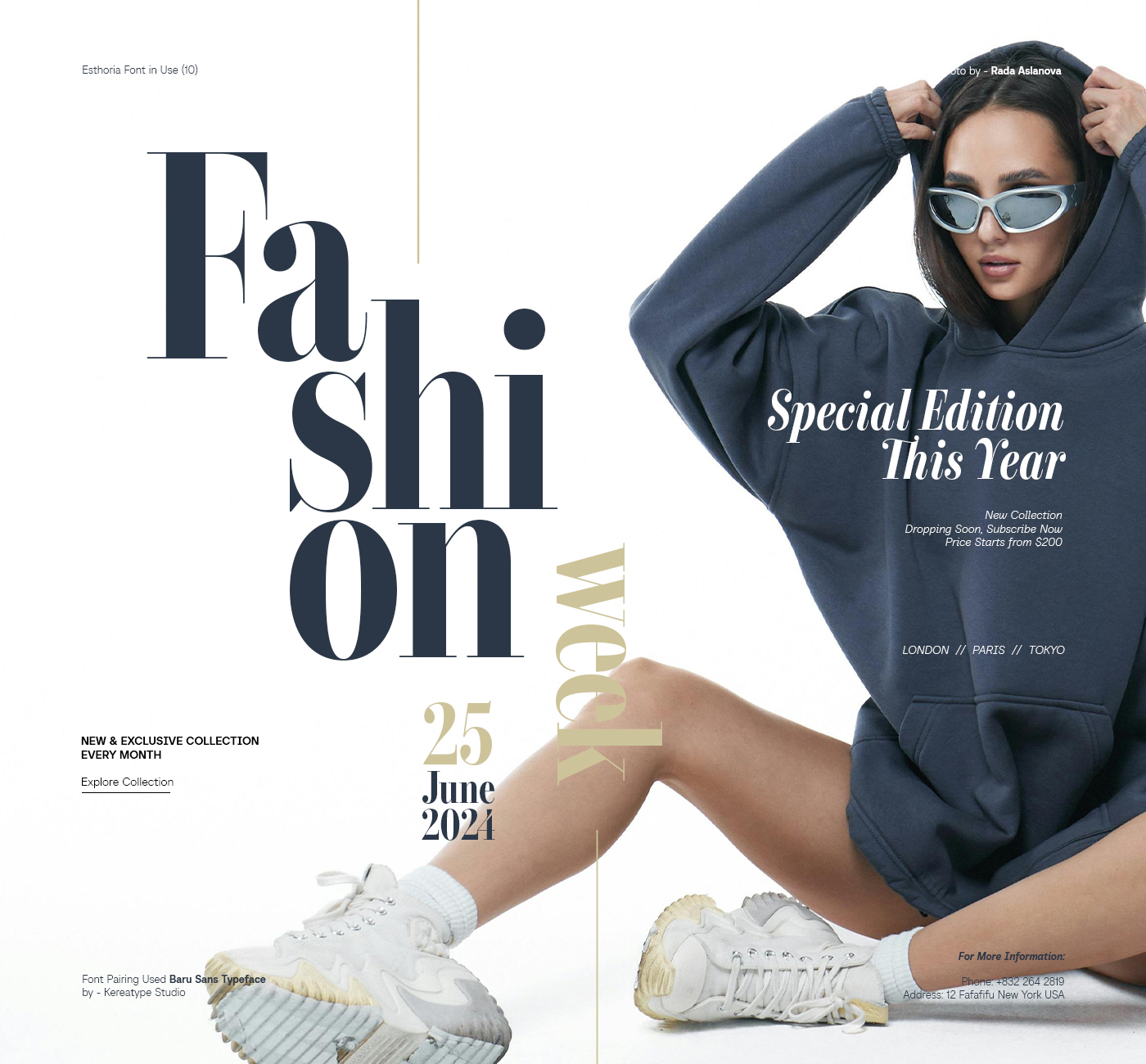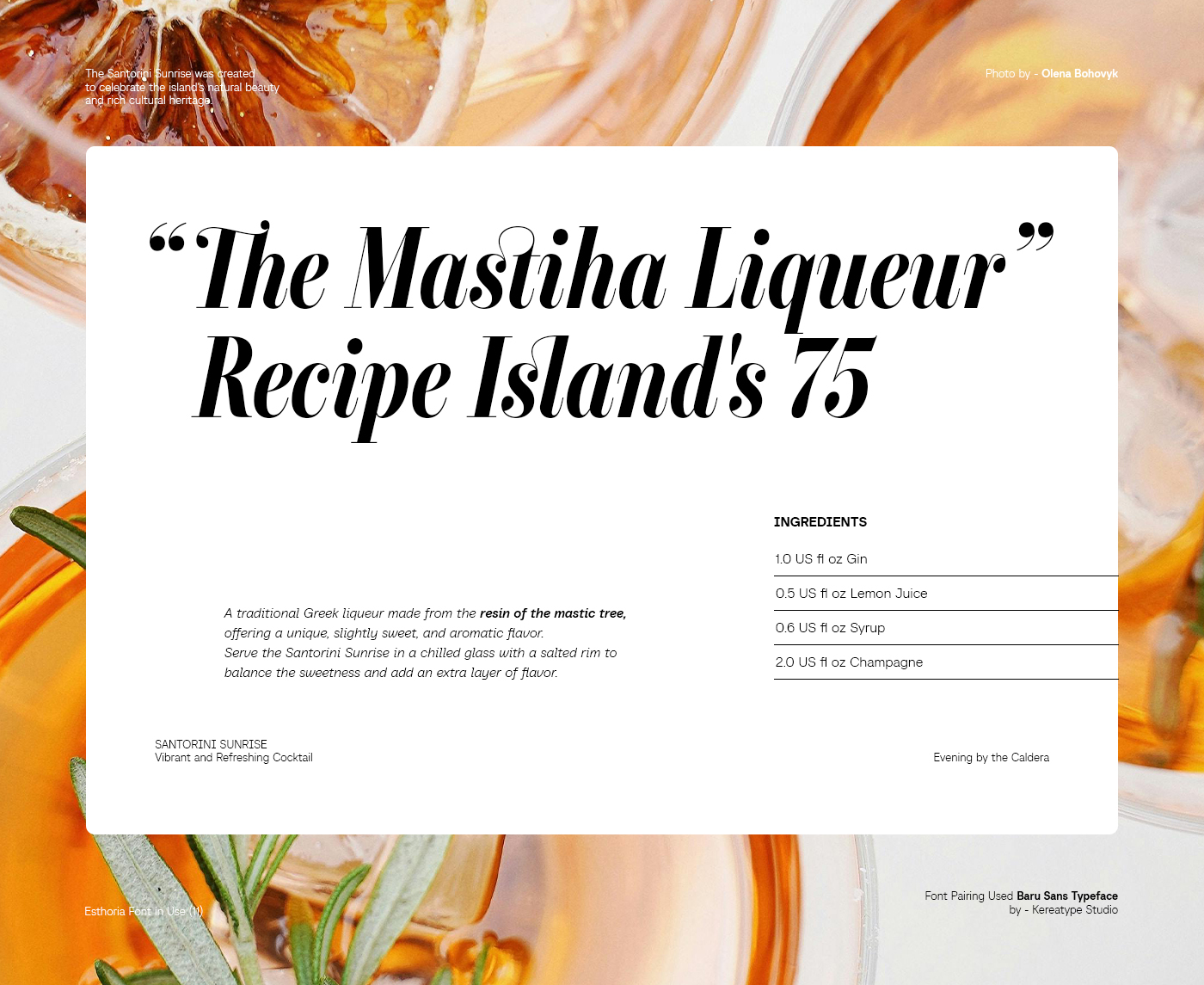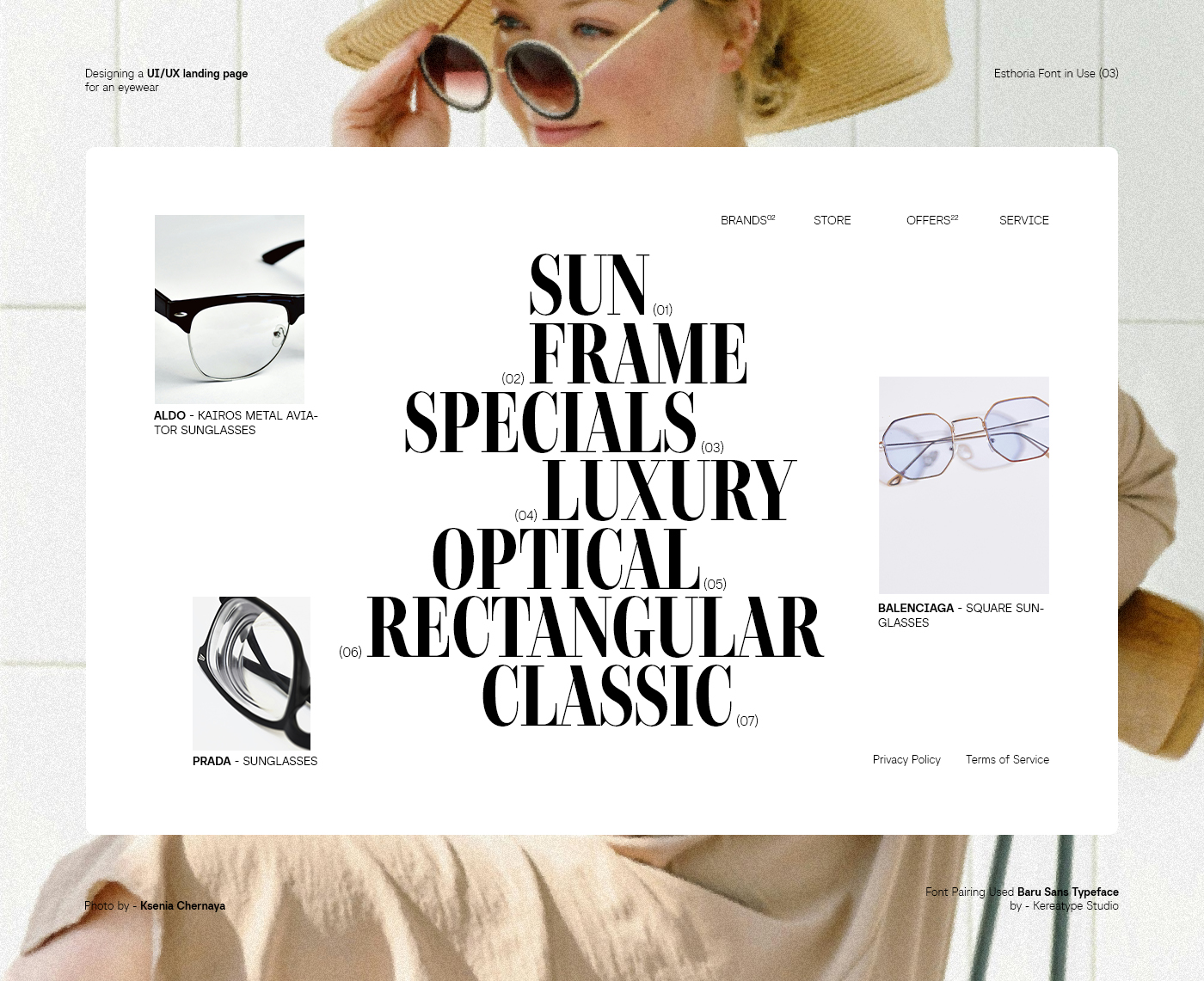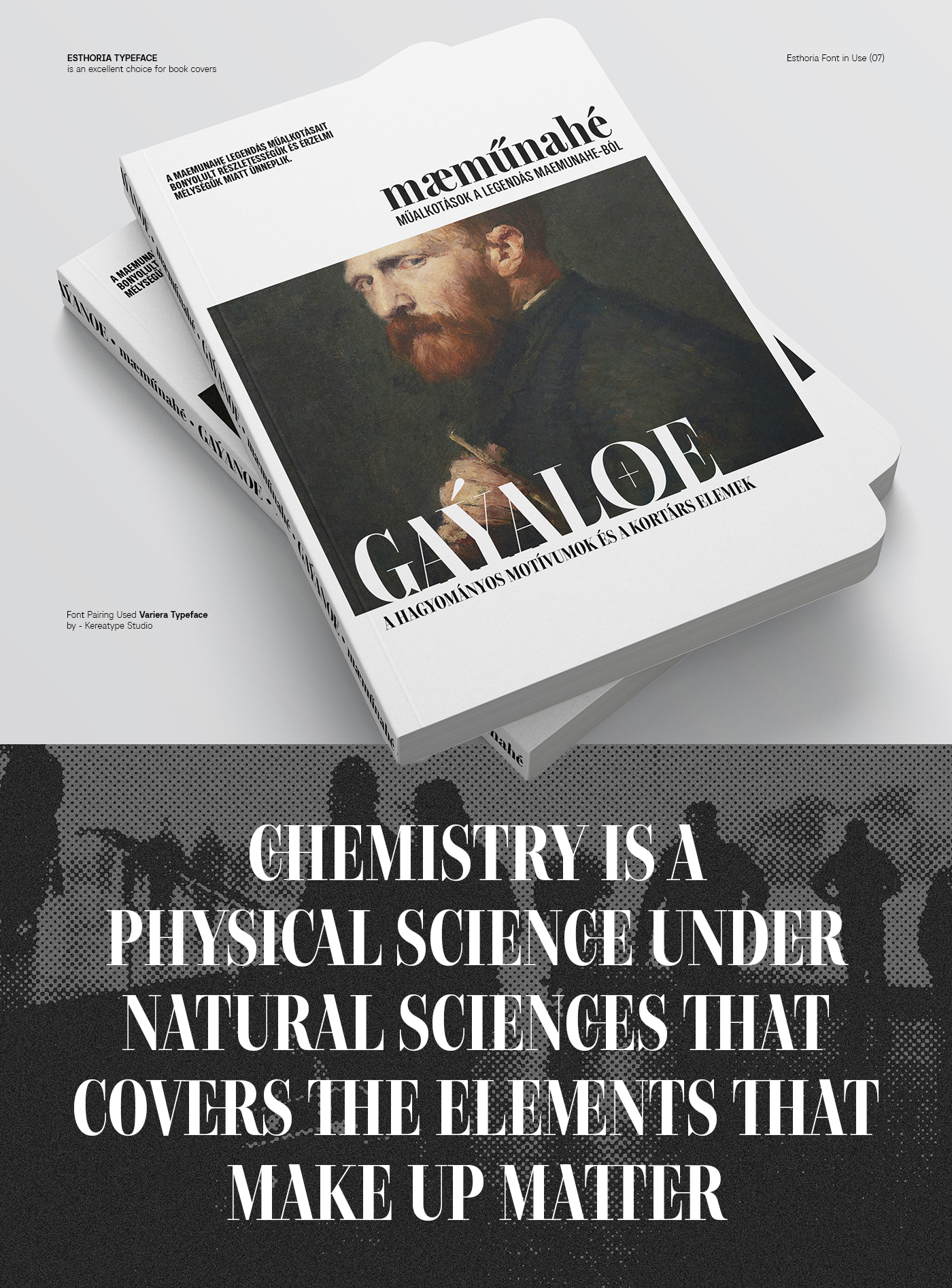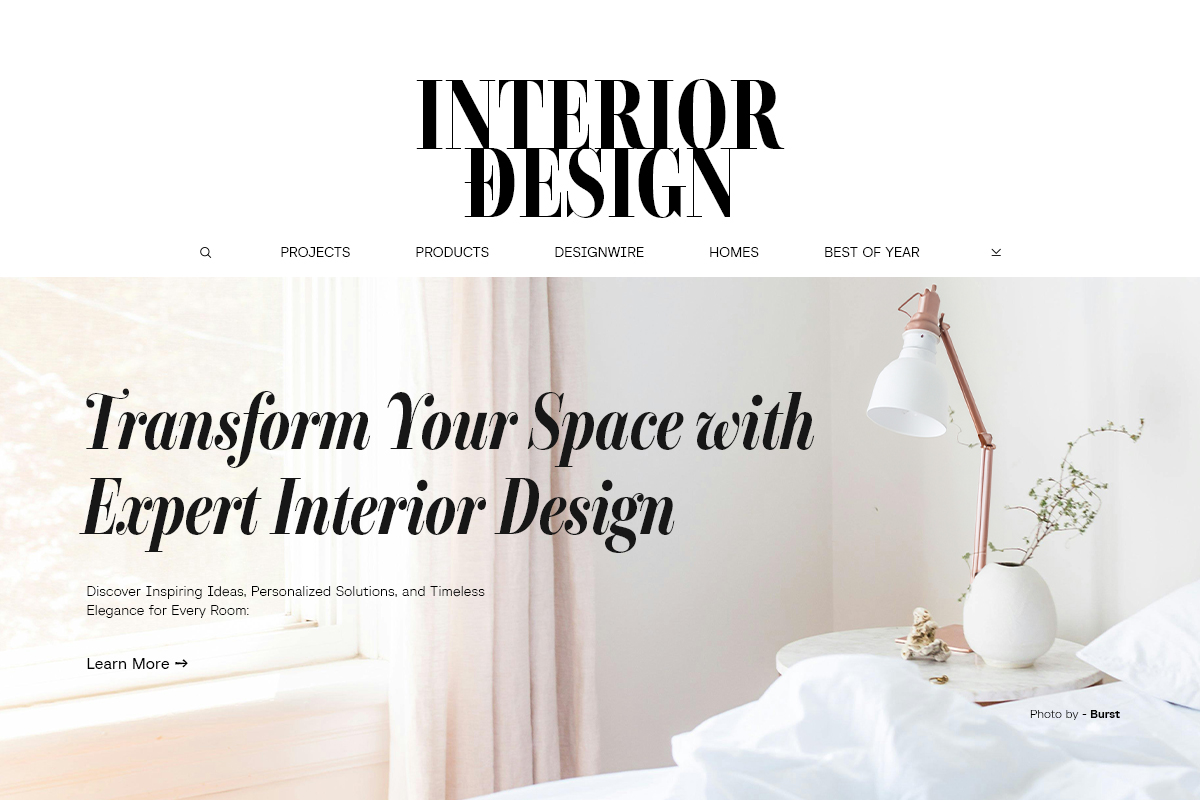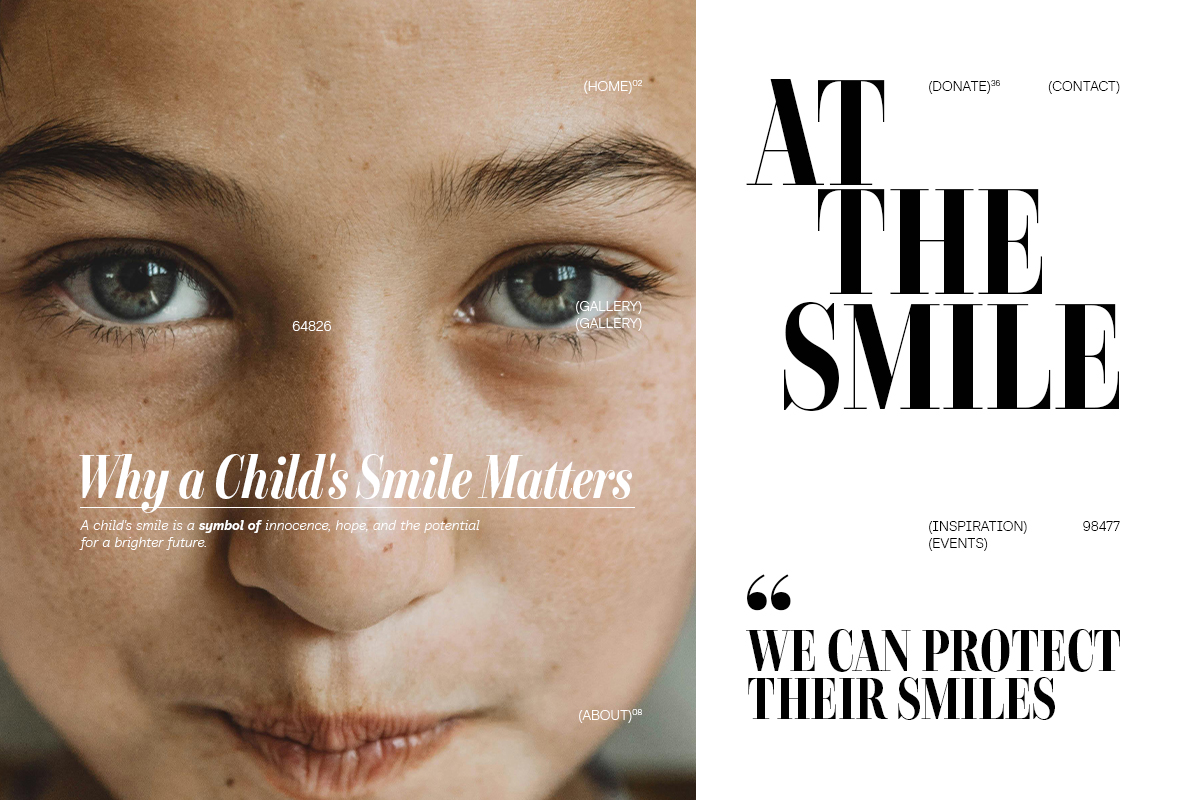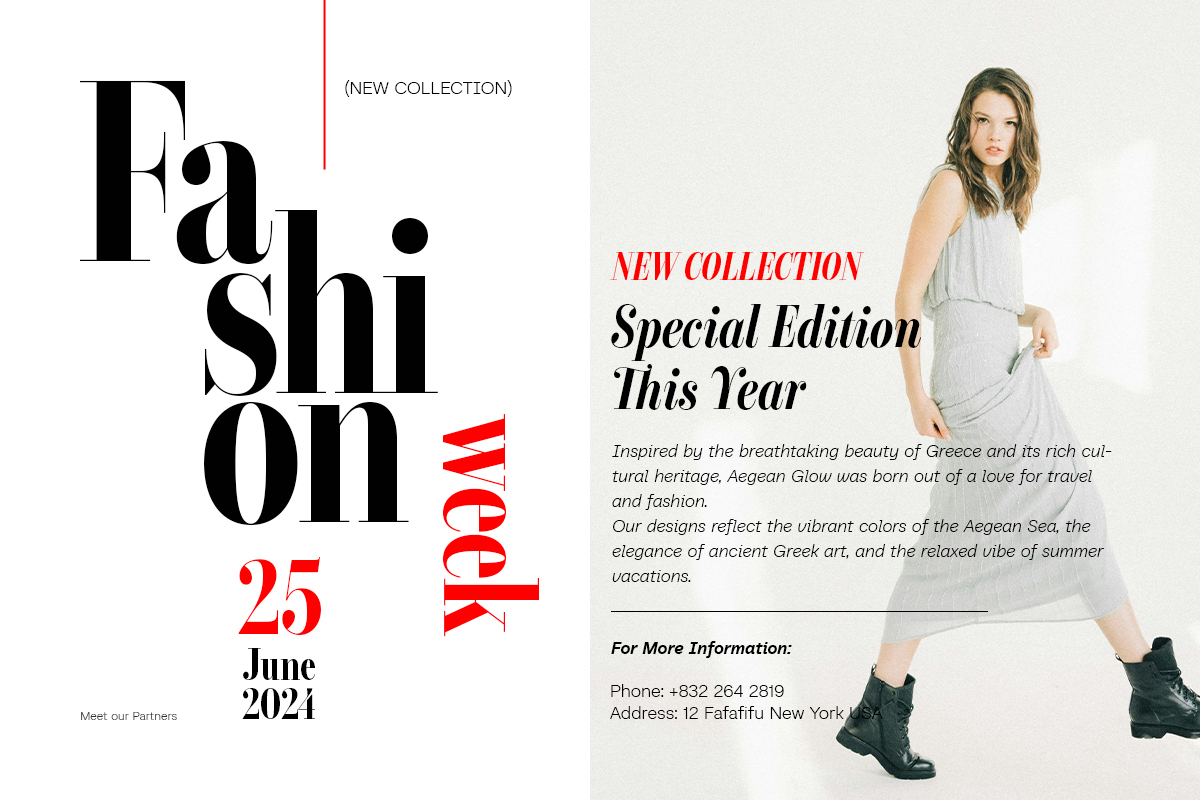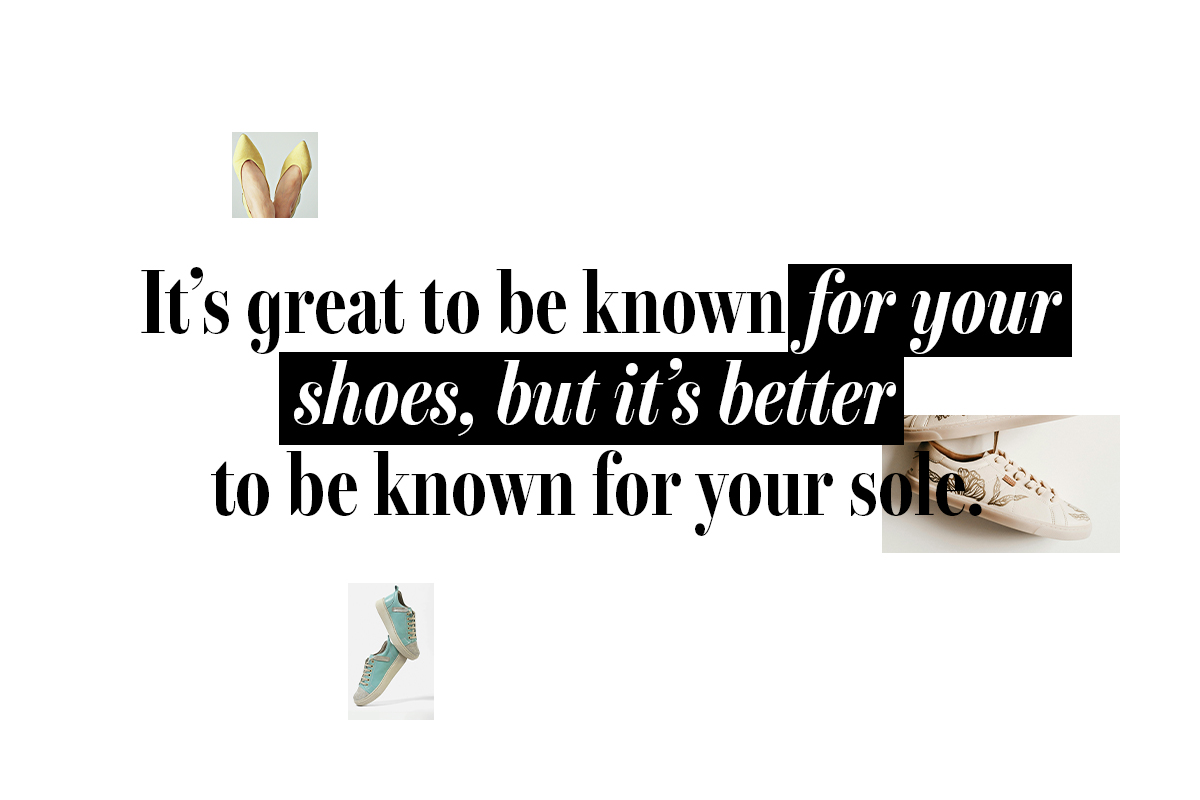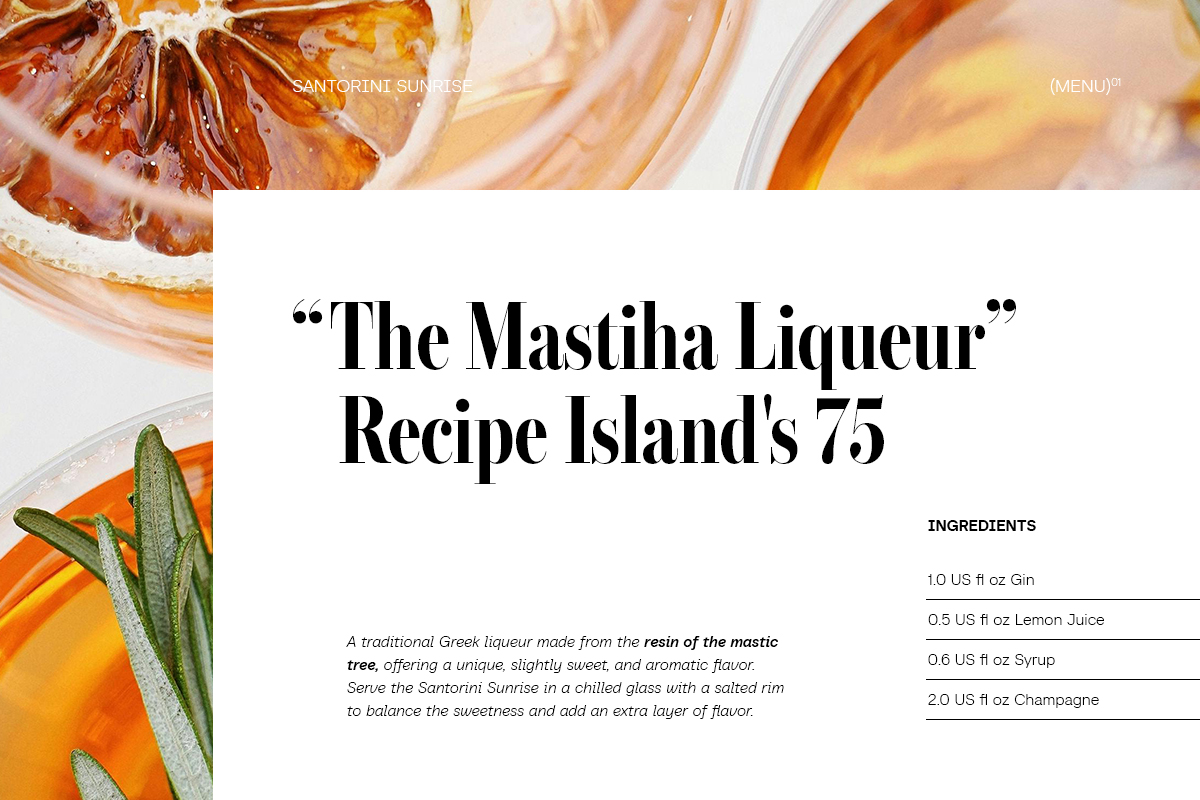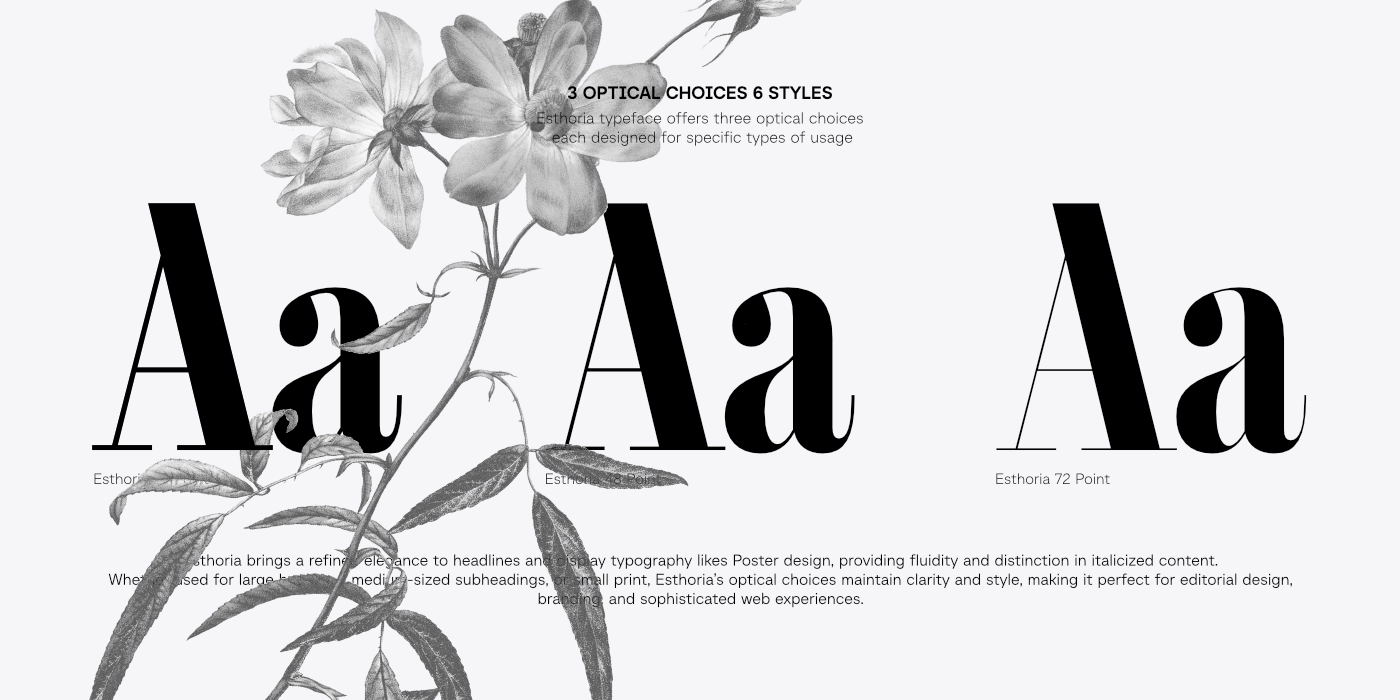
Esthoria
A Sophisticated High-contrast Modern Minimalist Serif Font. Perfect for Luxury Logos, Editorial Layouts, and Fashion Branding. Includes 6 Versatile Styles With Multilingual Support.
Sophisticated High-Contrast Modern Minimalist Serif
Bring timeless elegance to your creative projects with Esthoria, a sophisticated high-contrast modern minimalist serif font meticulously crafted by Kereatype Studio. This premium typeface perfectly bridges the gap between classic typography and contemporary design, offering a striking visual presence that demands attention.
Perfect for Luxury Branding Whether you are designing a high-end fashion editorial, luxury cosmetic packaging, an elegant boutique logo, or a classy lifestyle magazine, Esthoria delivers unmatched refinement. Its sharp terminals, graceful curves, and perfectly balanced proportions instantly elevate your brand’s perceived value.
Versatile & Feature-Rich The Esthoria font family comes fully equipped with 6 versatile styles, giving you the ultimate flexibility to pair delicate body copy with bold, commanding display headlines. Complete with comprehensive multilingual support, beautiful alternate characters, and custom ligatures, Esthoria is built for professional designers and agencies demanding top-tier quality.